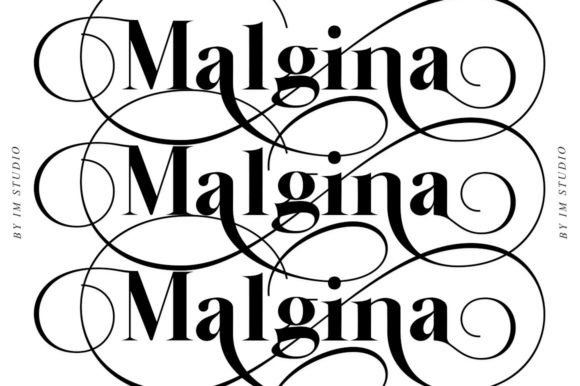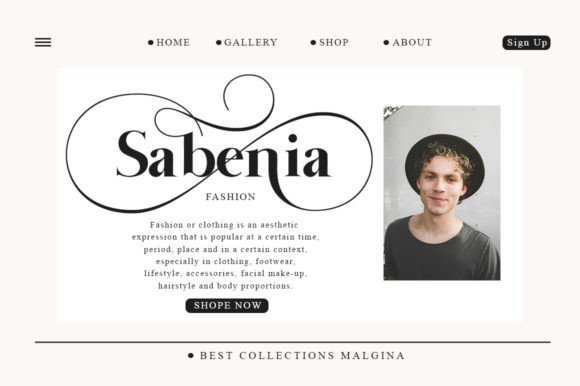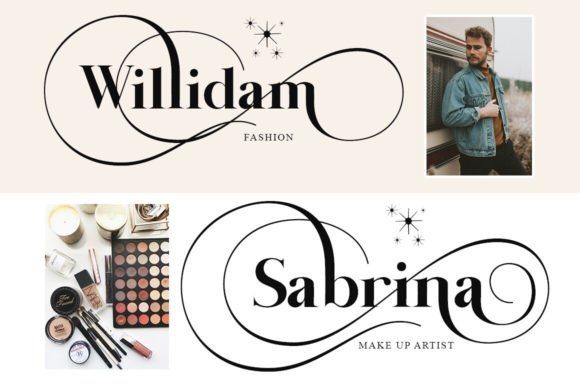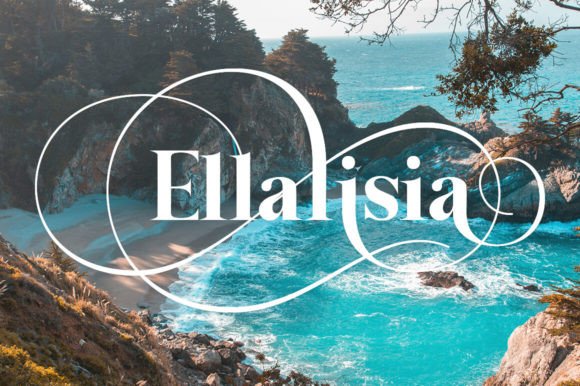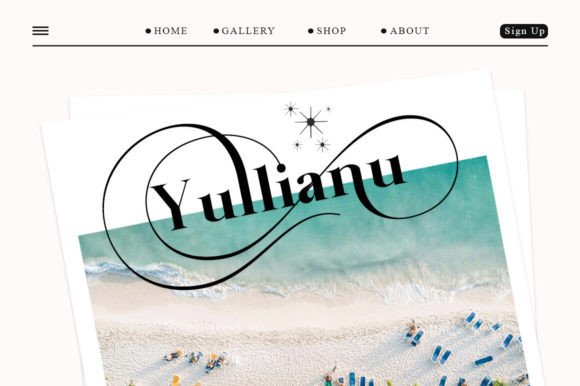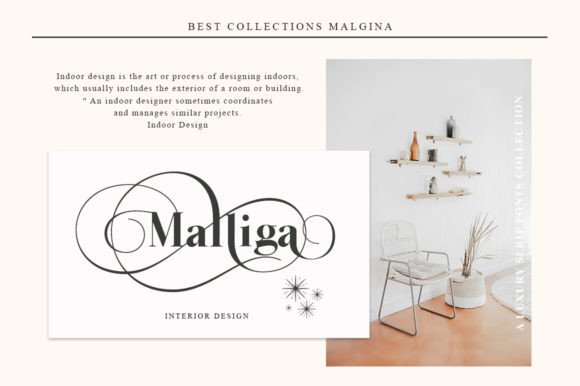
Introduction to Malgina Font
Do you remember the first time you stumbled upon a design that left you speechless? The way the words seemed to dance on the page, the elegance of the typography, and the overall feeling of wonder it evoked? For designers, moments like these are what make our craft so rewarding. And for those seeking to create high-quality visual content, the Malgina Font is an invaluable resource.
As a beautiful and nostalgic serif typeface, the Malgina Font is perfect for adding a touch of sophistication to any creative project. Whether you’re working on a logo, title, or even a small text snippet, this versatile font is sure to impress. And the best part? It’s available for free download, making it an accessible design resource for designers of all levels.
With its transparent background and elegant lines, the Malgina Font is a must-have for any designer looking to elevate their work. Whether you’re working on a personal project or a commercial design, this font is sure to bring a sense of class and refinement to your work.
Key Features of Malgina Font
- High-quality design for creative projects: Malgina Font is a premium font perfect for designers and artists working on high-end projects.
- Transparent background: The font’s transparent background allows for easy layering and manipulation in design projects.
- Unique characteristics: Malgina Font features a unique, hand-drawn design with intricate details and flourishes, making it a standout design resource.
- Perfect for design projects: With its high-quality design and transparent background, Malgina Font is perfect for designers and artists working on creative projects, including logos, branding, and typography.
Honest Review: Malgina Font
I recently came across the Malgina Font, and I was excited to give it a try. As a designer, I’m always on the lookout for high-quality fonts that can elevate my creative projects. And I’m happy to report that the Malgina Font did not disappoint.
- High-quality design: The Malgina Font has a crisp, clean design that’s perfect for a variety of projects.
- Transparent background: This makes it easy to use the font on any background without worrying about it getting lost.
One of the limitations of the Malgina Font is that it’s not as versatile as some other fonts I’ve used. It’s great for titles and headings, but it may not be the best choice for body text.
Overall, I’m really impressed with the Malgina Font. It’s a high-quality design resource that’s perfect for a variety of creative projects. While it may have some limitations, it’s definitely worth checking out if you’re looking for a great font to use in your next project.
Getting the Most Out of Malgina Font
To get the most out of the Malgina Font, use it in conjunction with a transparent background to create a high-quality design. You can also experiment with different font sizes and colors to add depth and visual interest to your design.
The Malgina Font is a versatile design resource that can be used in a variety of creative projects, including logos, social media graphics, and business cards. Its high-quality design and transparent background make it an ideal choice for designers who want to create professional-looking designs quickly and easily.